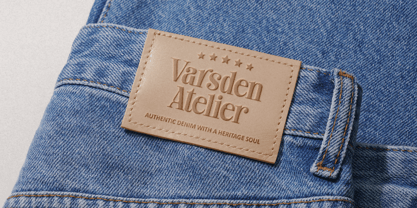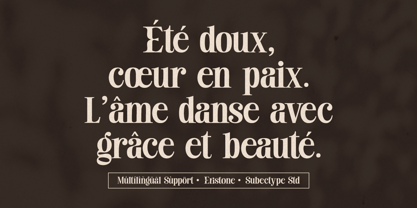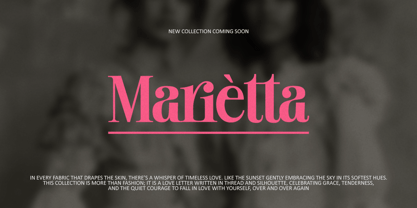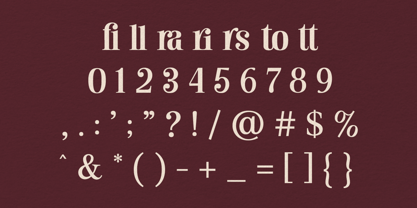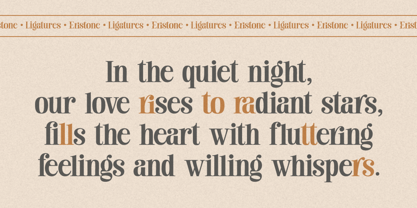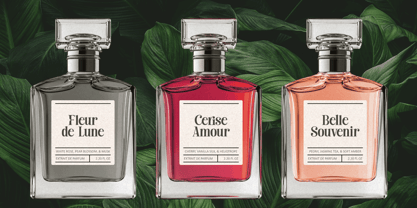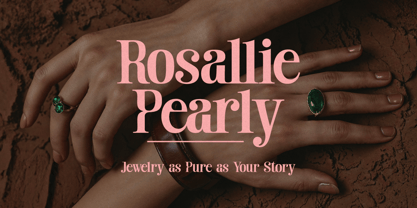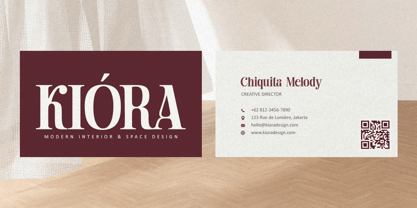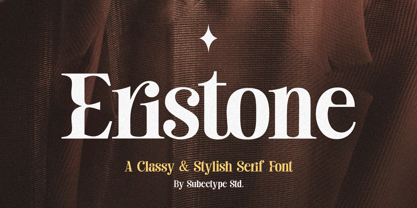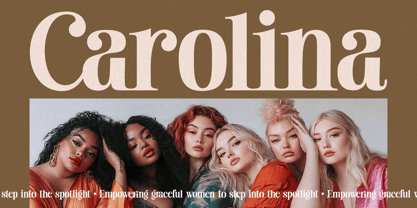
Eristone
by Subectype
The Eristone Font Family was designed by Rangga Subekti and published by Subectype. Eristone contains 1 styles. More about this family
Introducing a timeless serif font that embodies beauty and elegance in every curve. With refined letterforms and graceful details, this font is perfect for creating sophisticated branding, stylish logos, editorial designs, invitations, and more. Its classic charm and modern versatility make it an ideal choice for businesses looking to leave a lasting impression. Whether used in large headlines or delicate body text, this serif typeface delivers a luxurious and professional look across all design projects.
Designers: Rangga Subekti
Current Foundry: Subectype